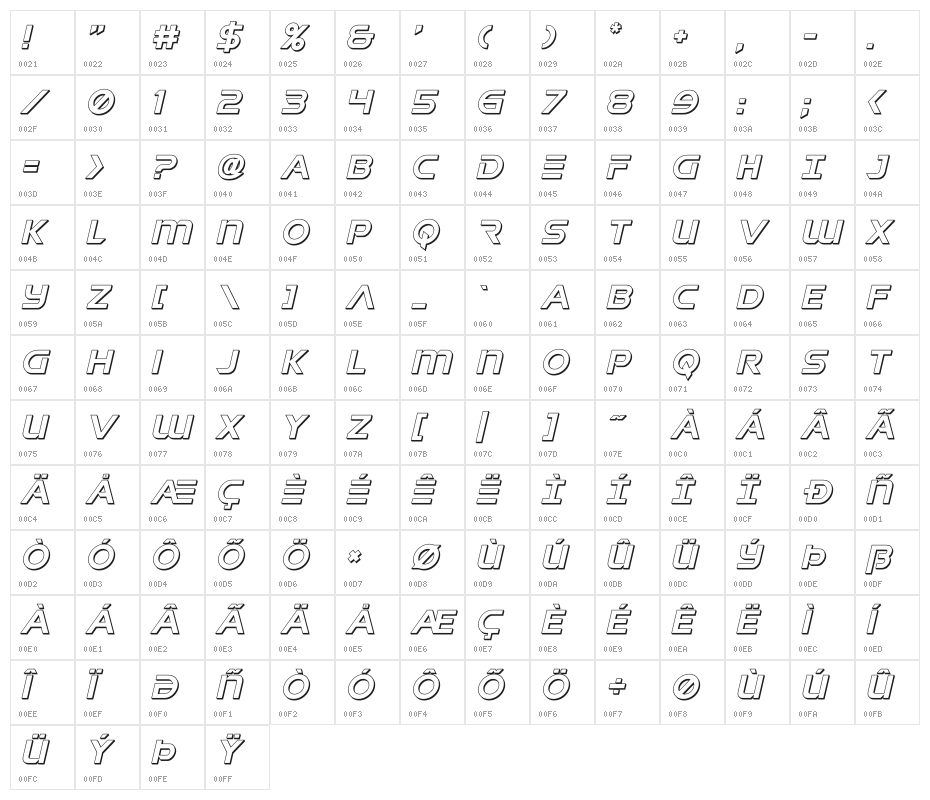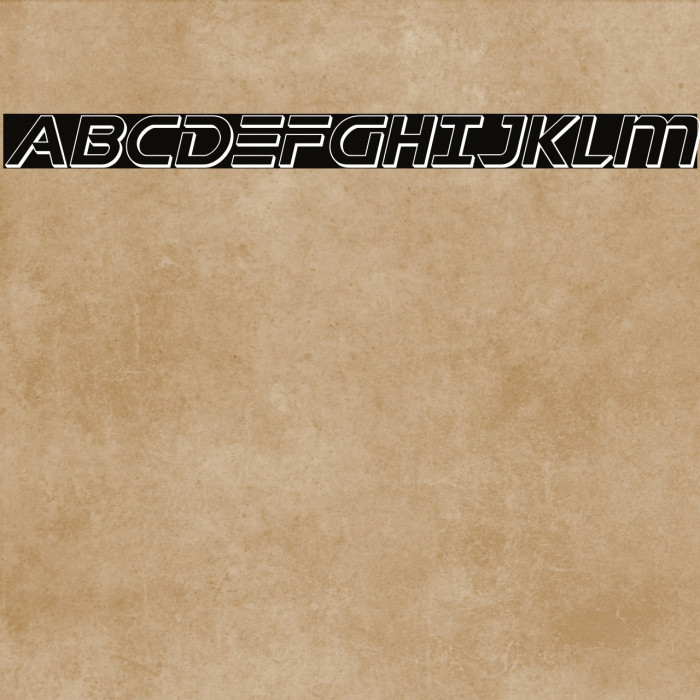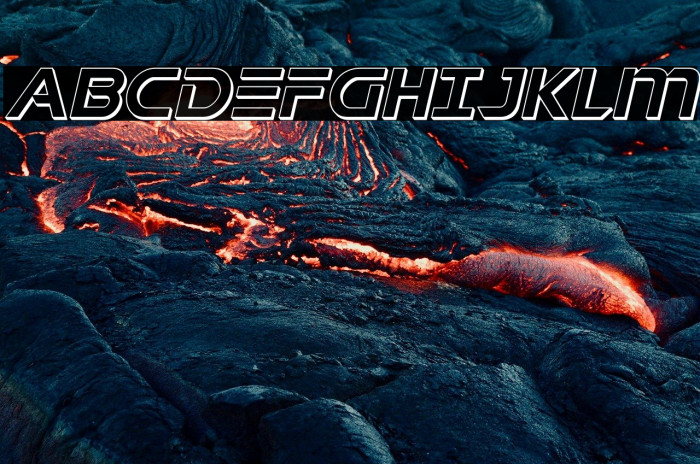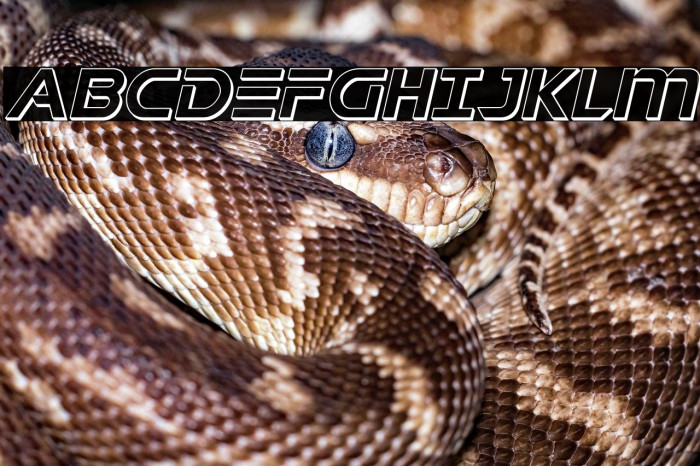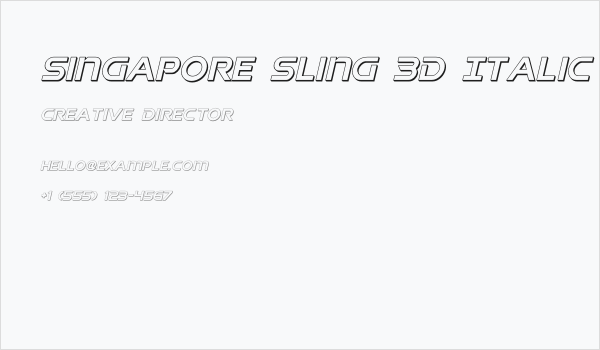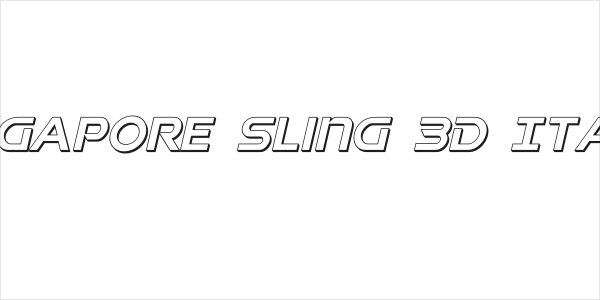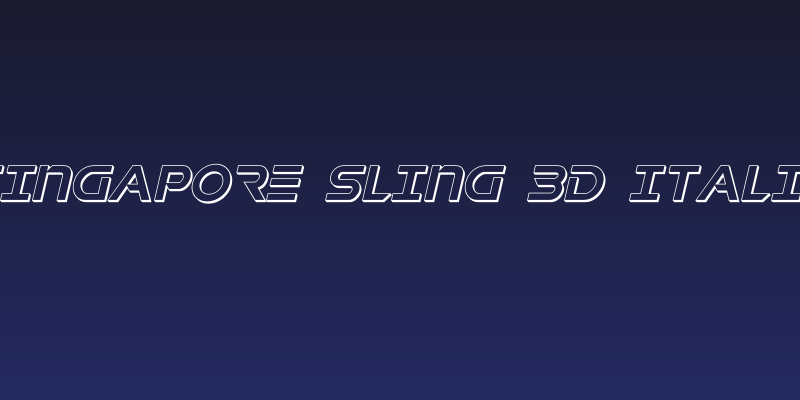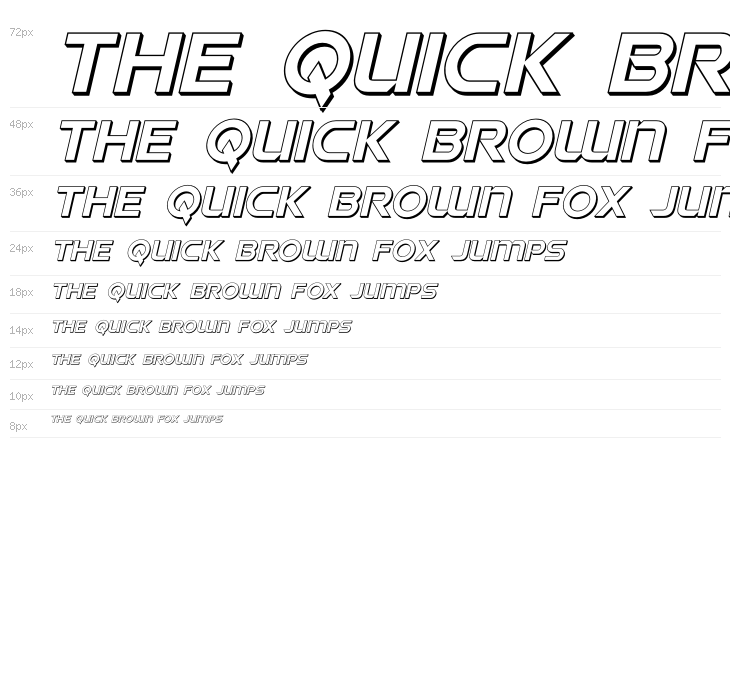
Singapore Sling 3D Italic Font
Singapore Sling 3D Italic Description
This font features a bold, three-dimensional design with an italic slant, giving it a dynamic and futuristic appearance. The characters are outlined, creating a hollow effect that enhances the 3D illusion. The uppercase and lowercase letters maintain a consistent style, with sharp angles and clean lines. The numerals and special characters follow the same design principles, ensuring uniformity across the font. This typeface is ideal for projects that require a modern and eye-catching look, such as technology-related branding or sci-fi themed designs.
| Proposed Projects | Ideal for technology branding, sci-fi themes, video game titles, and modern advertising. |